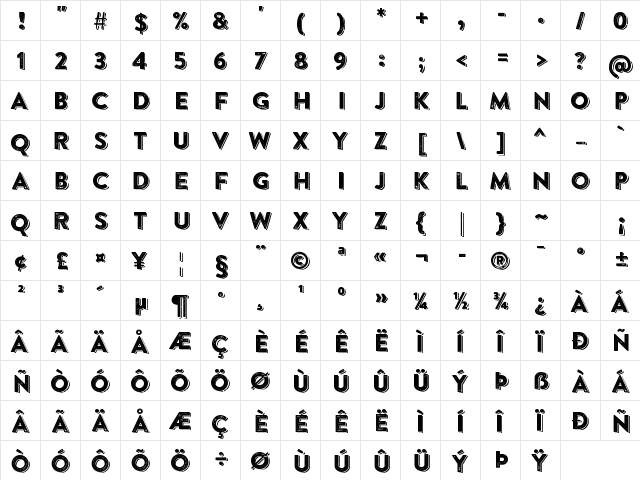
Brandon Printed One Shadow
| Foundry | Hannes von Doehren |
| Designer | Hannes von Doehren |
Design Context for Brandon Printed Typeface
Brandon Printed is built around its visual character rather than neutral utility — its distinctive forms are designed to make an impression at display sizes.
Font Pairing: Pair with a clean neutral sans-serif for body copy to let Brandon Printed's character lead without overwhelming the composition.
Pro Tip: Treat Brandon Printed as the centrepiece of your typographic hierarchy. One strong heading set in a decorative face can carry an entire layout.